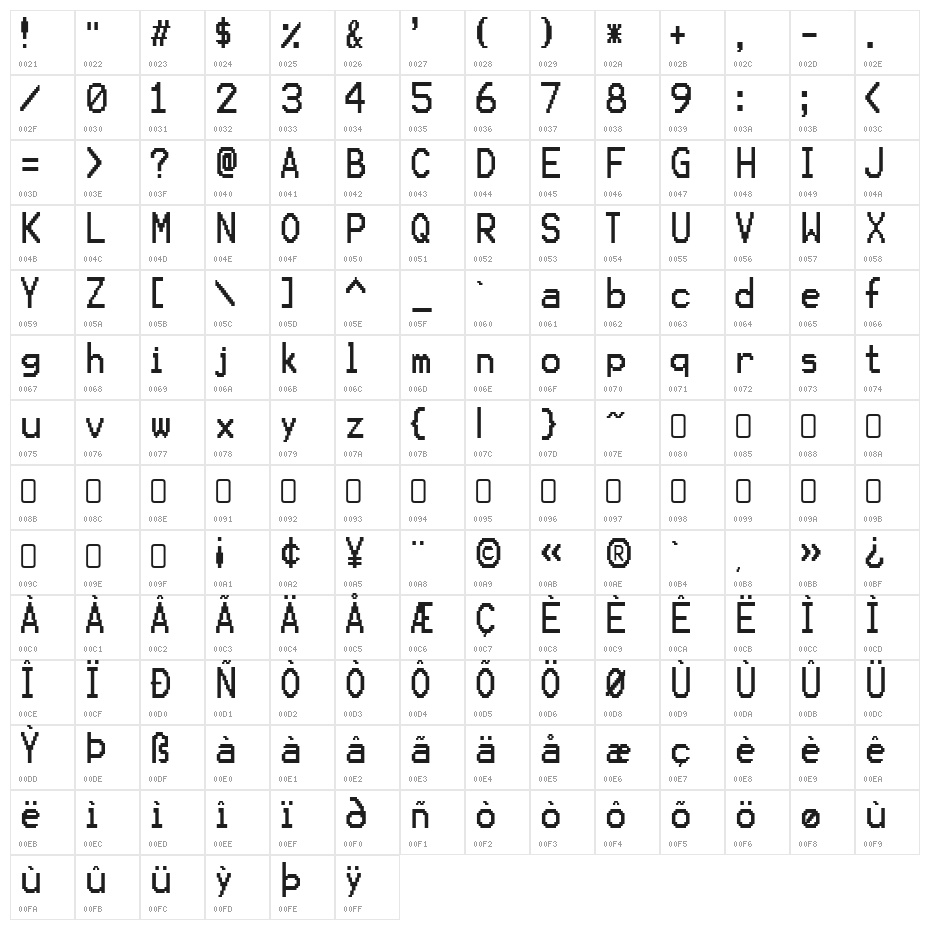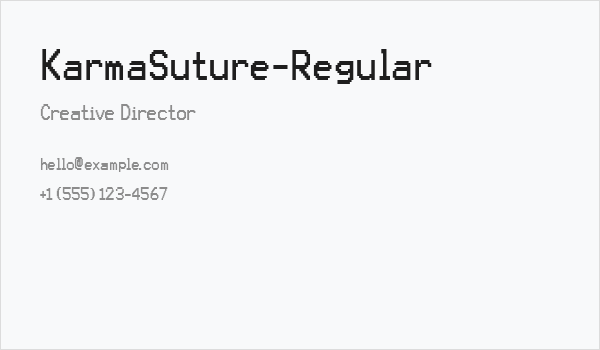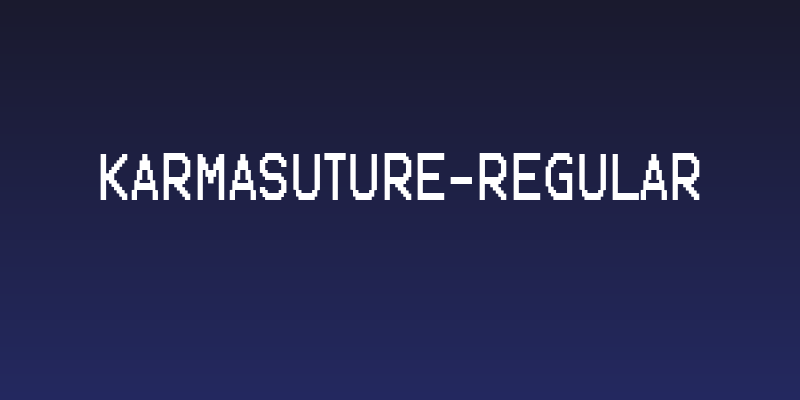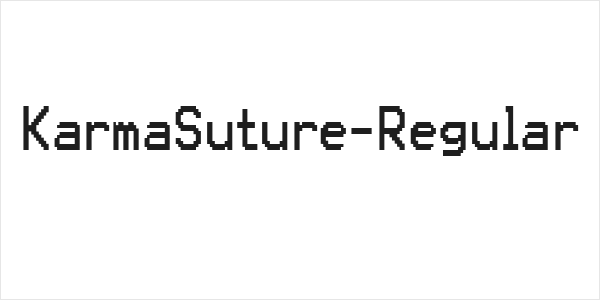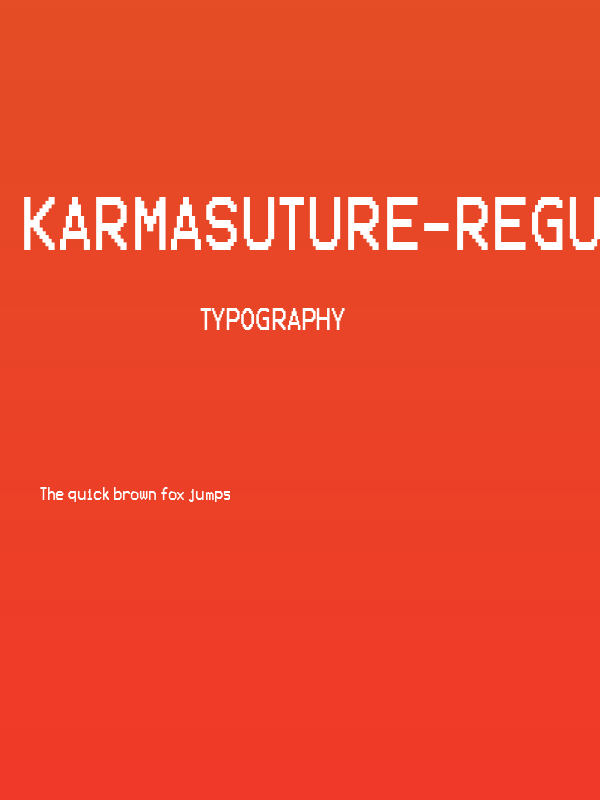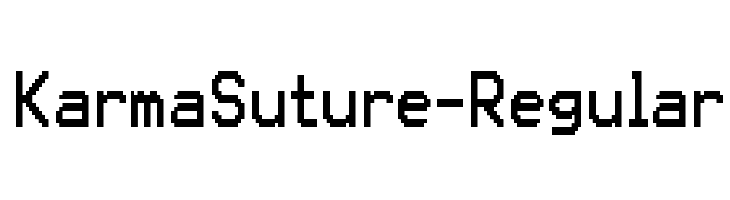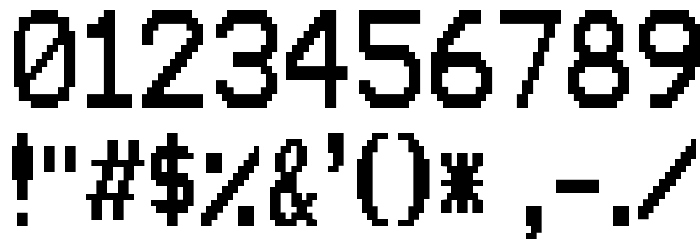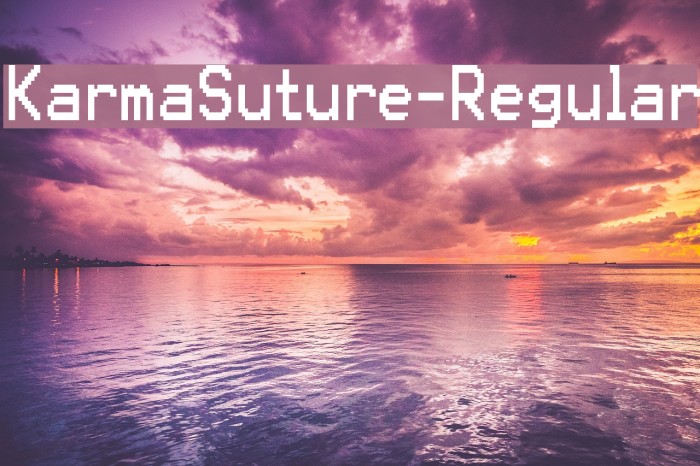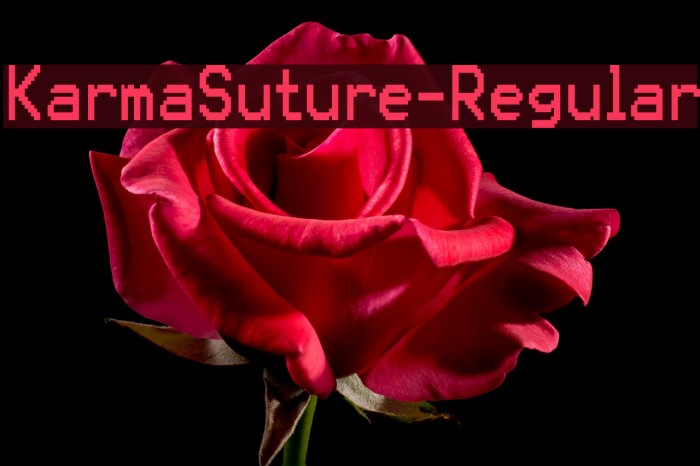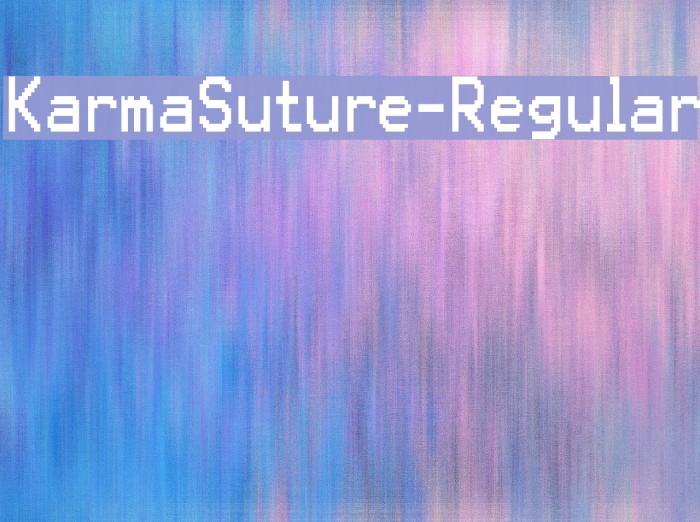
KarmaSuture-Regular Font
KarmaSuture-Regular Description
This font features a pixelated, blocky style reminiscent of early digital or video game typography. Each character is composed of sharp, angular lines, giving it a distinctly retro and technological appearance. The uppercase and lowercase letters maintain a consistent height and width, contributing to a uniform and structured look. Numbers and special characters follow the same design principles, ensuring a cohesive visual identity across all glyphs. The font's simplicity and clarity make it highly legible, even at smaller sizes, while its unique style adds a playful, nostalgic touch to any design.
| Use Case | Headlines, Logos, Digital Art |
| Proposed Projects | Ideal for video game design, digital art projects, retro-themed graphics, and tech-related branding. |